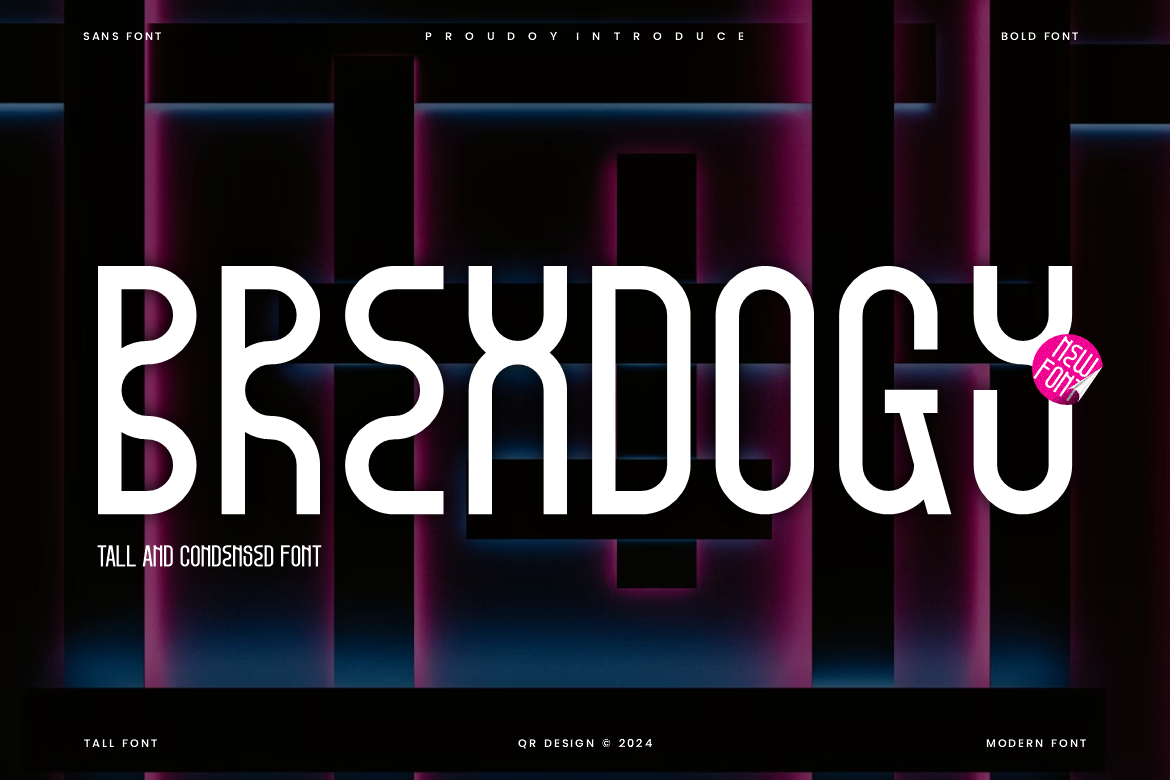
Brexdogy - Tall & Sans Font
Brexdogy - Tall Font is a bold and authentic display font. The font is suitable for any branding project like poster, logo, sport, and many more. Outstanding in a wide range of contexts.